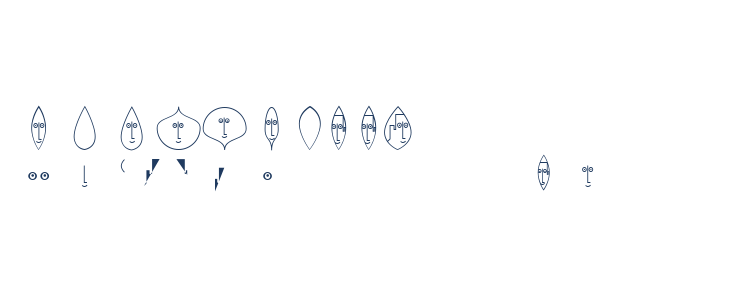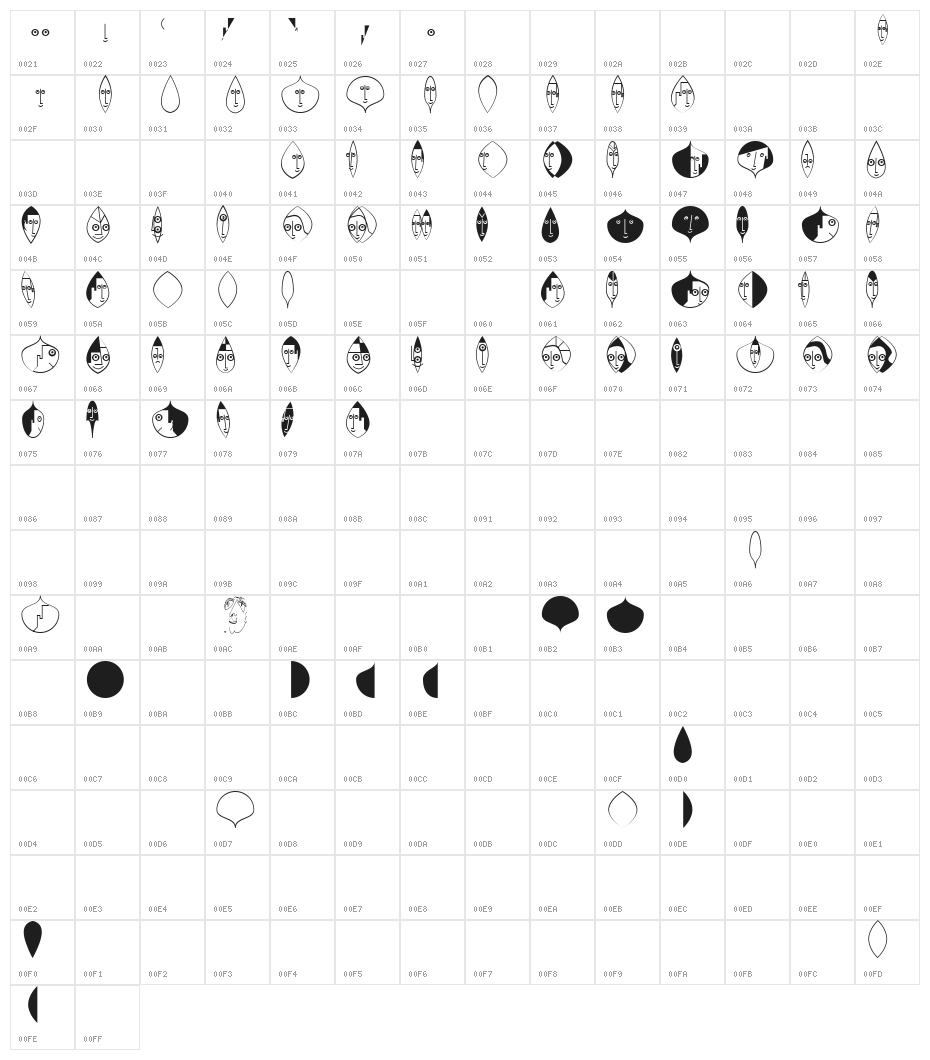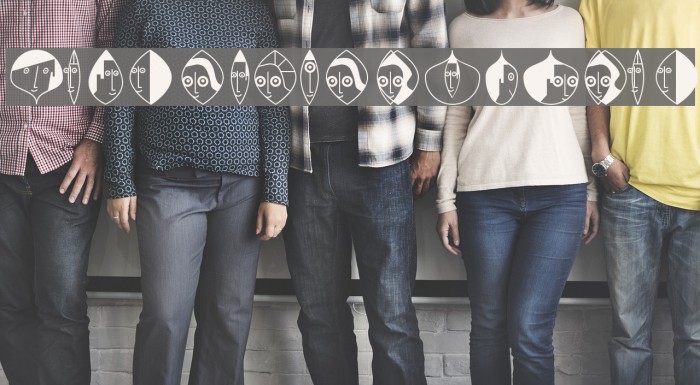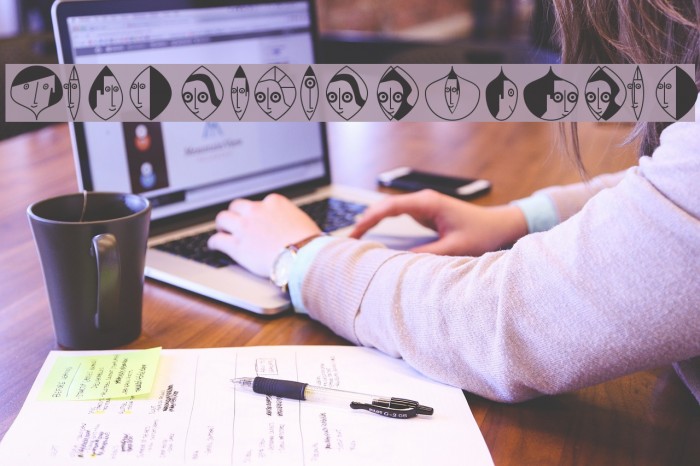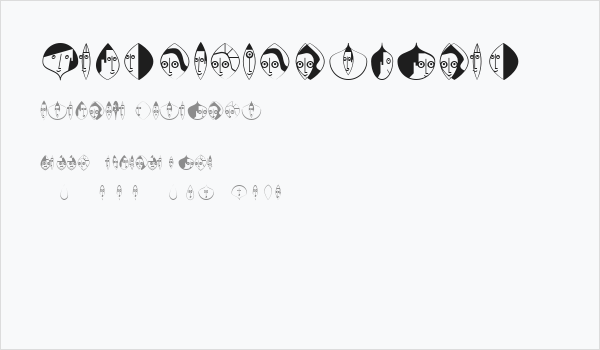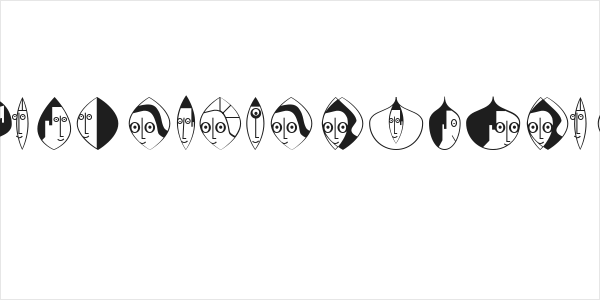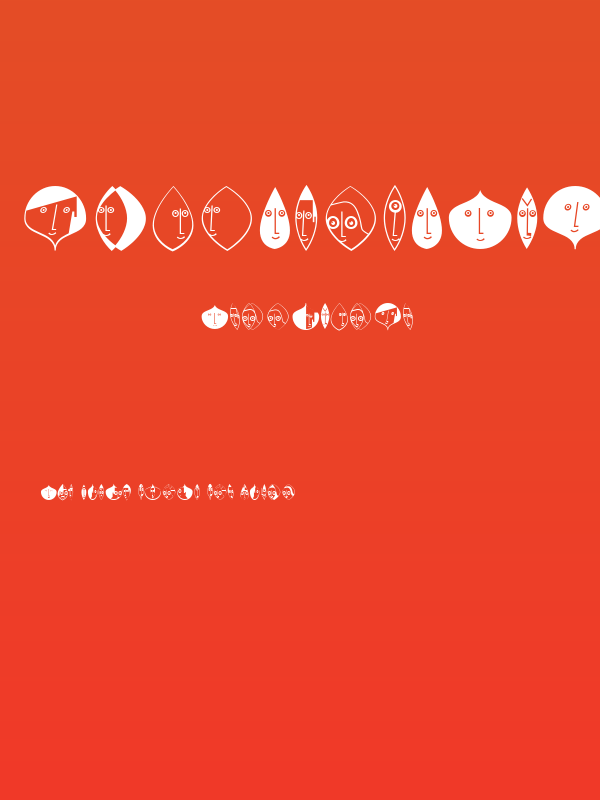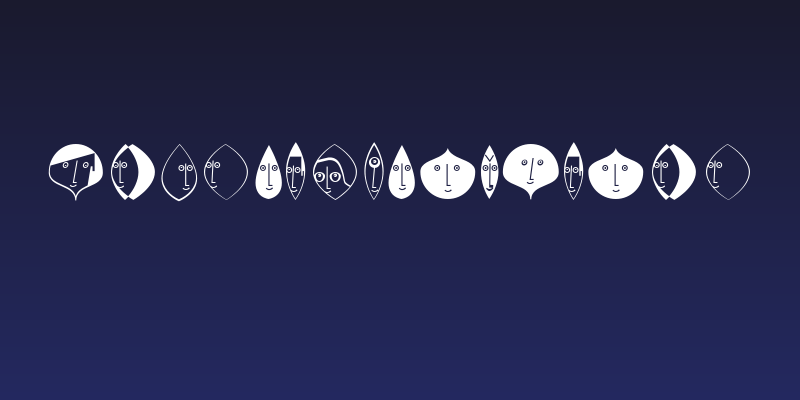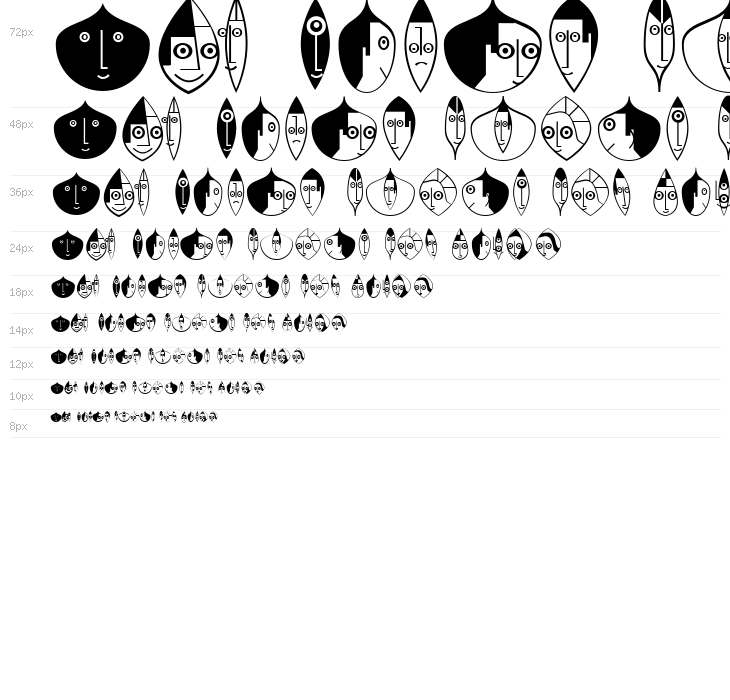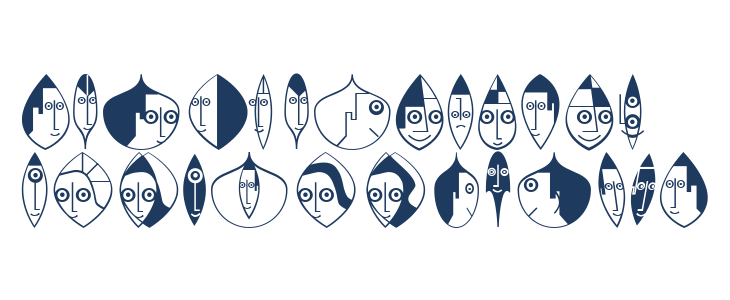
HeadsConstructed Font
| Gesamtstil | Decorative, Abstract, Artistic |
| Anwendungsfall | Logos, Headlines, Posters, Artistic projects |
| Vorgeschlagene Projekte | Art posters, album covers, editorial illustrations, branding for creative industries, event invitations. |